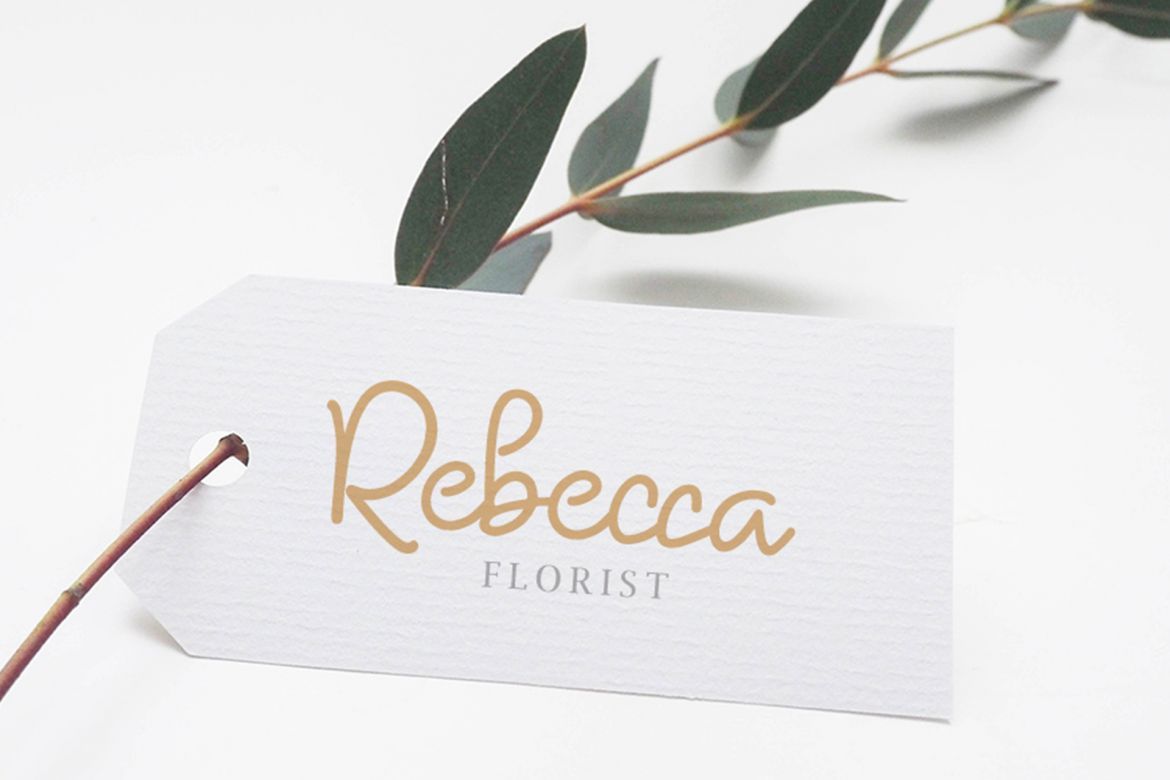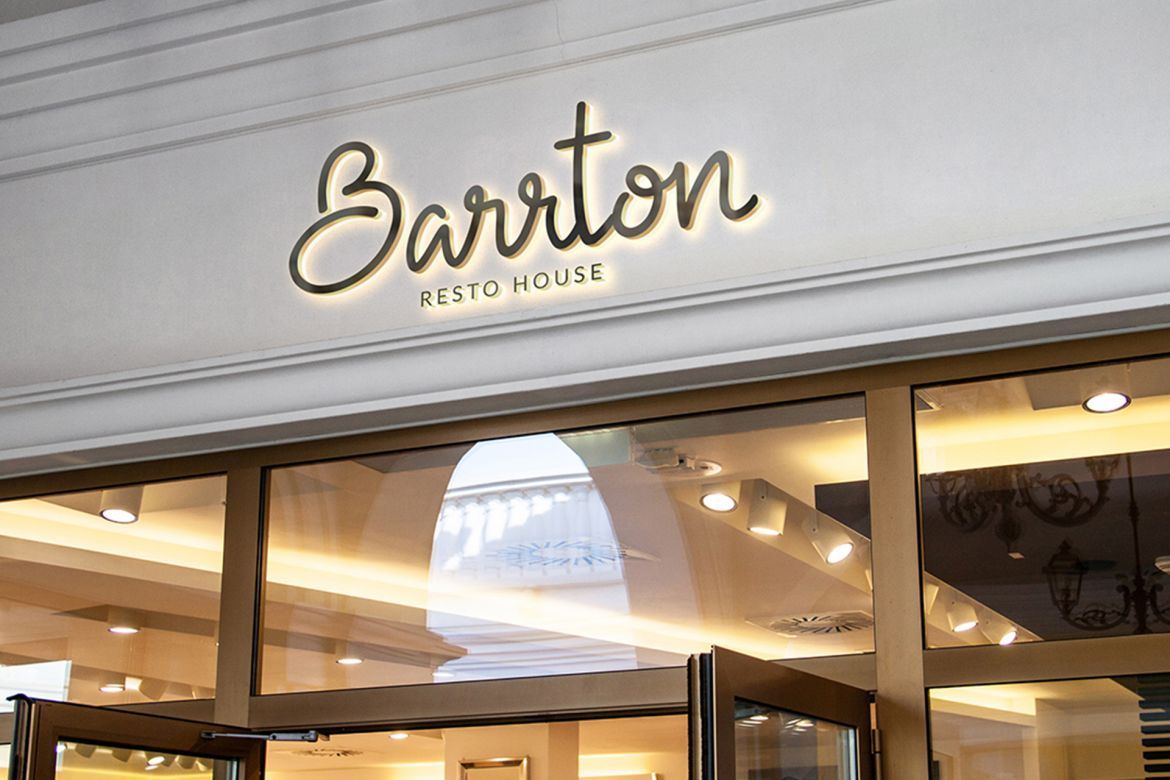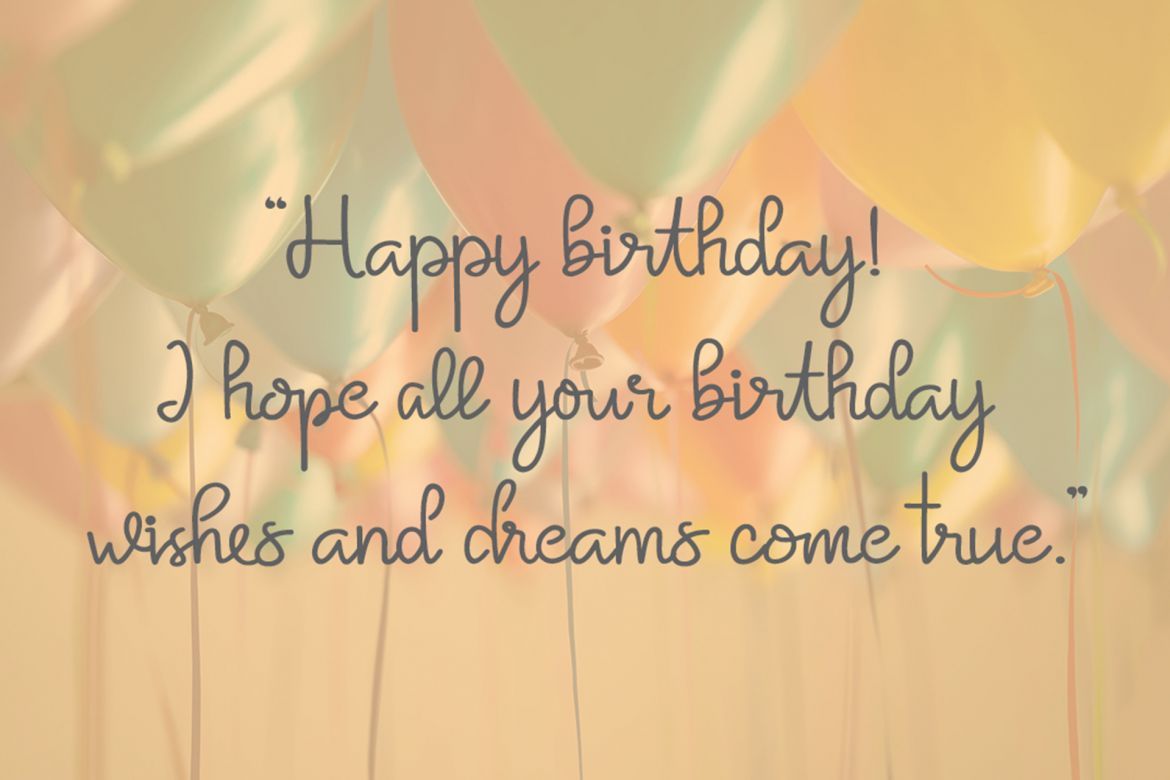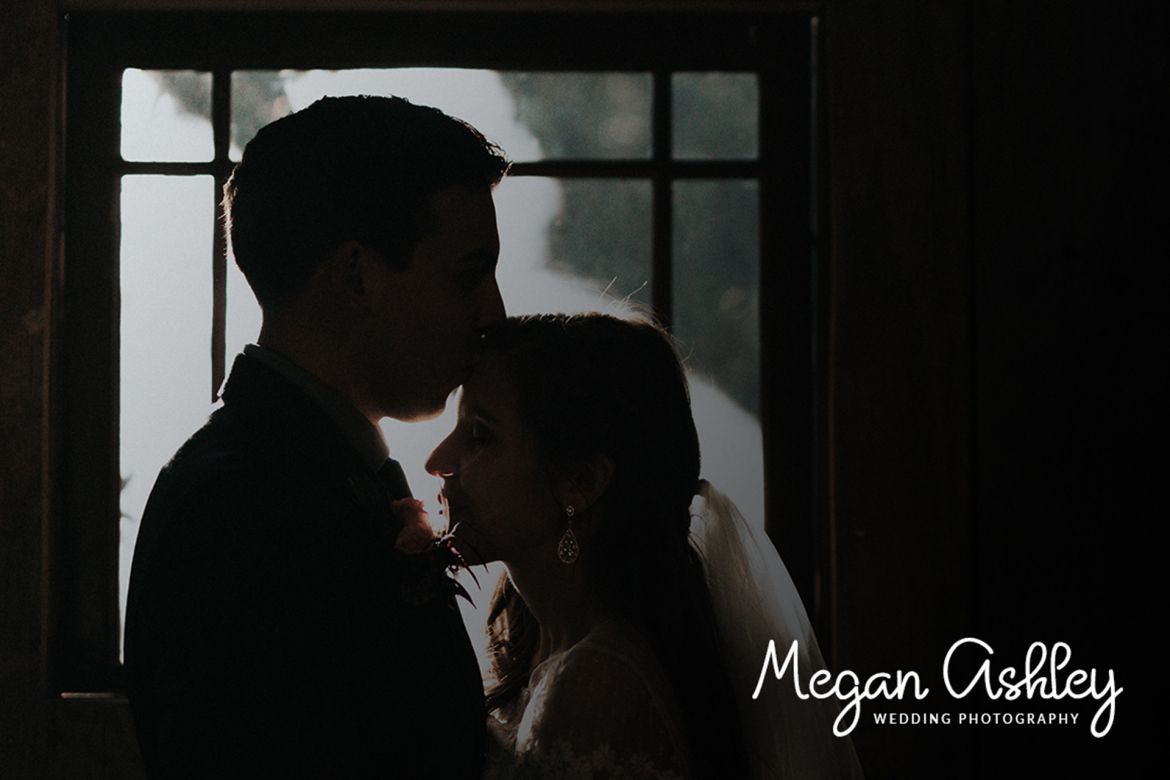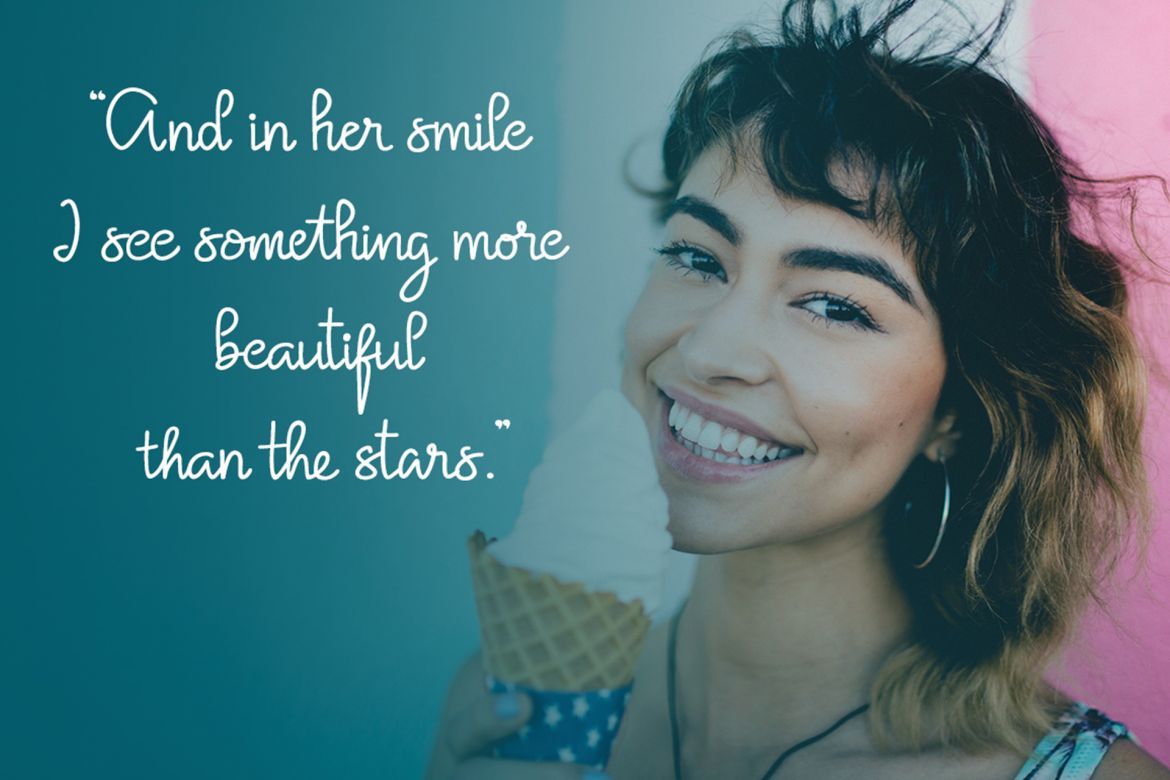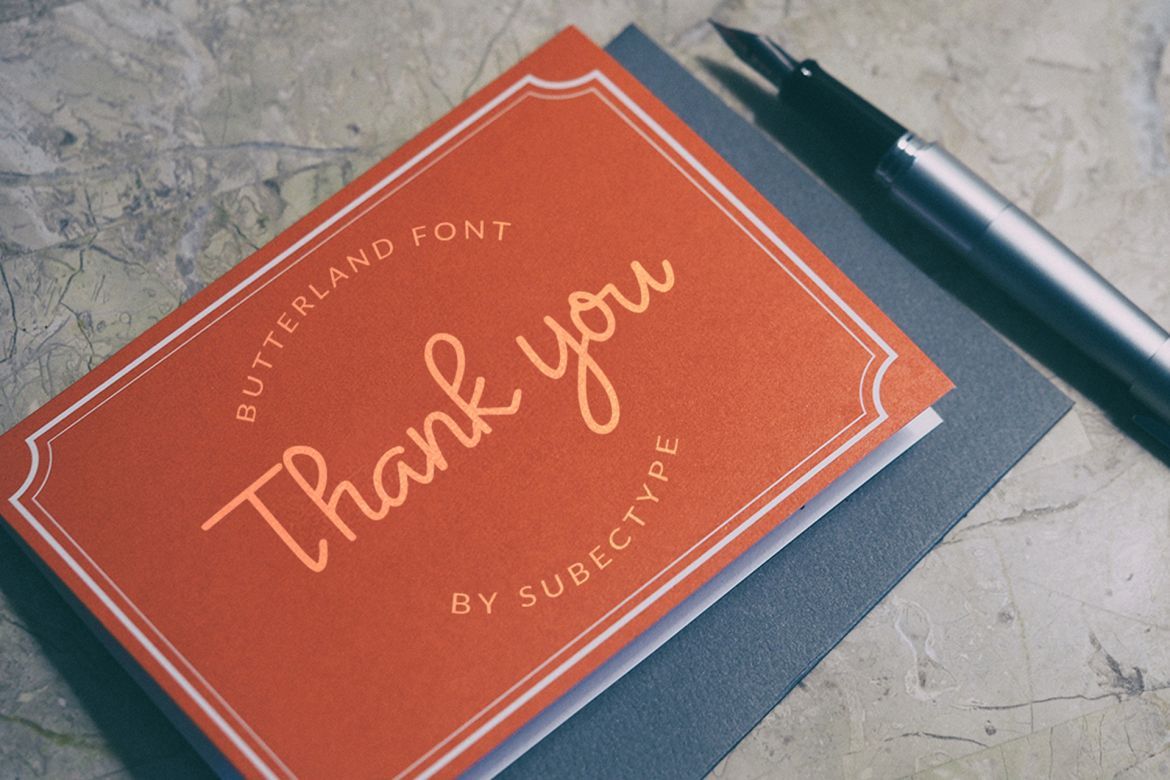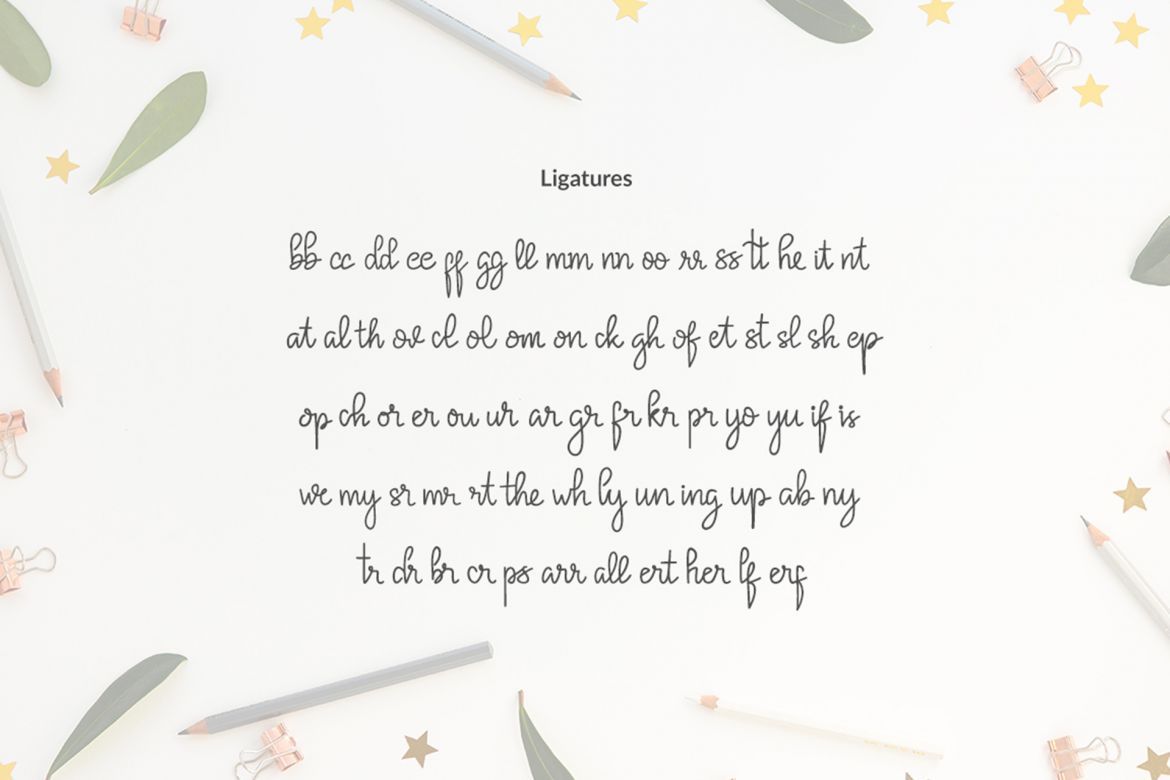
Butterland Monoline Script Font
The Butterlant is a smooth and legible script.
Its classical, elegant look makes it perfect for branding, marketing, advertising, invitation and more!
• each font has stylish handwritten style
• monoline style